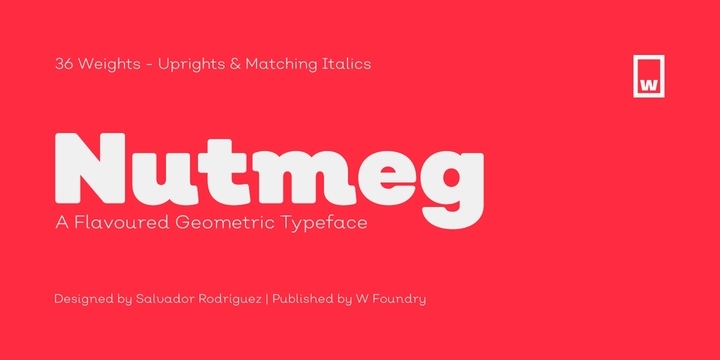
Nutmeg Font
Nutmeg Font is perfect for artisanal spice companies, gourmet cooking brands, traditional bakery identities, warm café communications, holiday baking promotions, and cozy kitchen product packaging. This aromatic typeface excels in spice market signage, culinary workshop materials, seasonal recipe publications, and any application where warm spices and comfort cooking create nostalgic connections with food lovers and home cooking enthusiasts.
What makes Nutmeg Font so exciting is its remarkable ability to capture the warm, comforting essence of traditional spices through rounded, nurturing letterforms that seem to emanate the cozy warmth of spiced treats and home baking. The font features organic curves, kitchen-friendly proportions, and comforting character shapes that embody the nostalgic appeal and aromatic richness of traditional cooking spices. Its warming presence makes it perfect for brands celebrating culinary traditions and home cooking comfort.
Nutmeg Font comes in a spiced family including Light, Regular, Medium, Bold, and Cinnamon weights. Each style features complete uppercase and lowercase character sets, culinary symbols, spice numerals, and kitchen punctuation marks. The font family also includes organic alternates, spice ligatures, and comfort variations that allow designers to create truly warming communications with culinary appeal and professional kitchen quality.
The font's aromatic character makes it particularly effective for spice retailers, bakeries, comfort food restaurants, and traditional cooking brands. Its warm readability ensures that Nutmeg Font communicates clearly while maintaining its distinctive spiced personality. The font's ability to evoke comfort and culinary tradition makes it an invaluable ingredient for any project seeking to celebrate spice heritage and connect with audiences through the timeless appeal of aromatic cooking, comfort baking, and the warming embrace of traditional spices and home kitchen nostalgia.